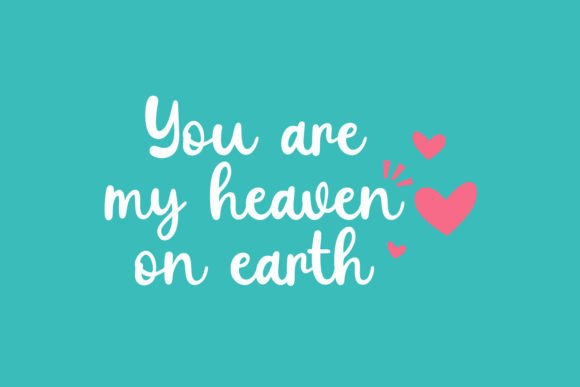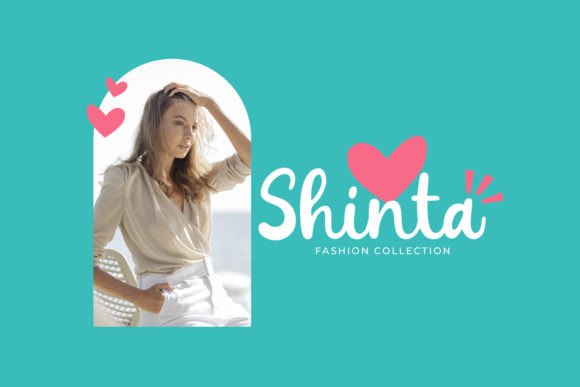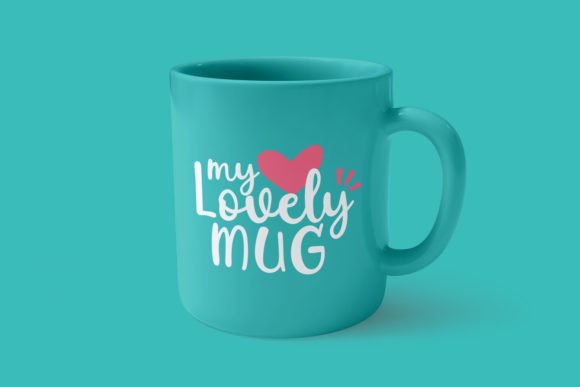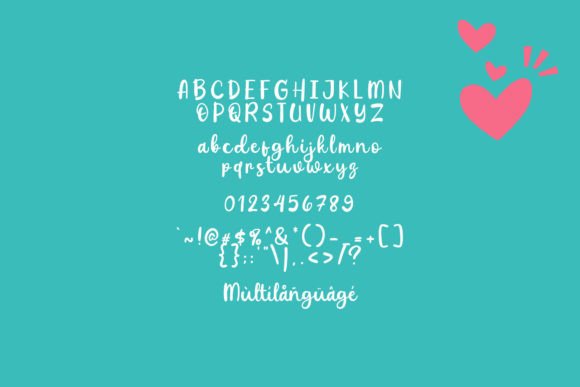
The Ultimate Guide to Hello Whistle Font: Elevate Your Designs with this Modern Script Font
Have you ever been in the middle of a design project, and suddenly, you’re stuck on finding the perfect font? I recall a recent experience where I was working on a poster design for a local event, and I just couldn’t seem to find a font that captured the playful yet elegant vibe I was going for. That’s when I stumbled upon the Hello Whistle font, and it completely transformed my design. In this article, we’ll dive into the world of Hello Whistle, exploring its features, uses, and everything in between.
A Personal Review of Hello Whistle Font
As a designer, I’m always on the lookout for fonts that can help me create stunning visuals. Here’s my honest review of Hello Whistle:
What I Love About Hello Whistle ✨
- ✨ Modern and Cute Script Style: Hello Whistle boasts a modern and adorable script style that’s perfect for a wide range of design projects.
- ✅ Highly Versatile: This font can be used for posters, logos, magazines, book covers, banners, and so much more.
- ✅ Elegant and Playful: The font strikes the perfect balance between elegance and playfulness, making it suitable for various design themes.
- ⚠️ Limited Use in Formal Designs: While Hello Whistle is incredibly versatile, it may not be the best fit for very formal or traditional designs.
- ⚠️ Requires OpenType Features: To get the most out of Hello Whistle, you’ll need to use it with software that supports OpenType features.
The Story Behind Hello Whistle
Hello Whistle was designed with the intention of creating a modern script font that could be used for a wide range of design projects. The designer aimed to craft a font that was both elegant and playful, making it perfect for designs that require a touch of sophistication and whimsy.
| Author | Khurasan |
Q: What type of designs is Hello Whistle best suited for?
Hello Whistle is perfect for posters, logos, magazines, book covers, banners, and many more design projects that require a modern and cute script style.
Q: Does Hello Whistle support OpenType features?
Yes, Hello Whistle supports OpenType features, including glyphs, stylistic alternates, and ligatures.
Q: Is Hello Whistle suitable for formal designs?
While Hello Whistle is incredibly versatile, it may not be the best fit for very formal or traditional designs. It’s better suited for designs that require a touch of elegance and playfulness.